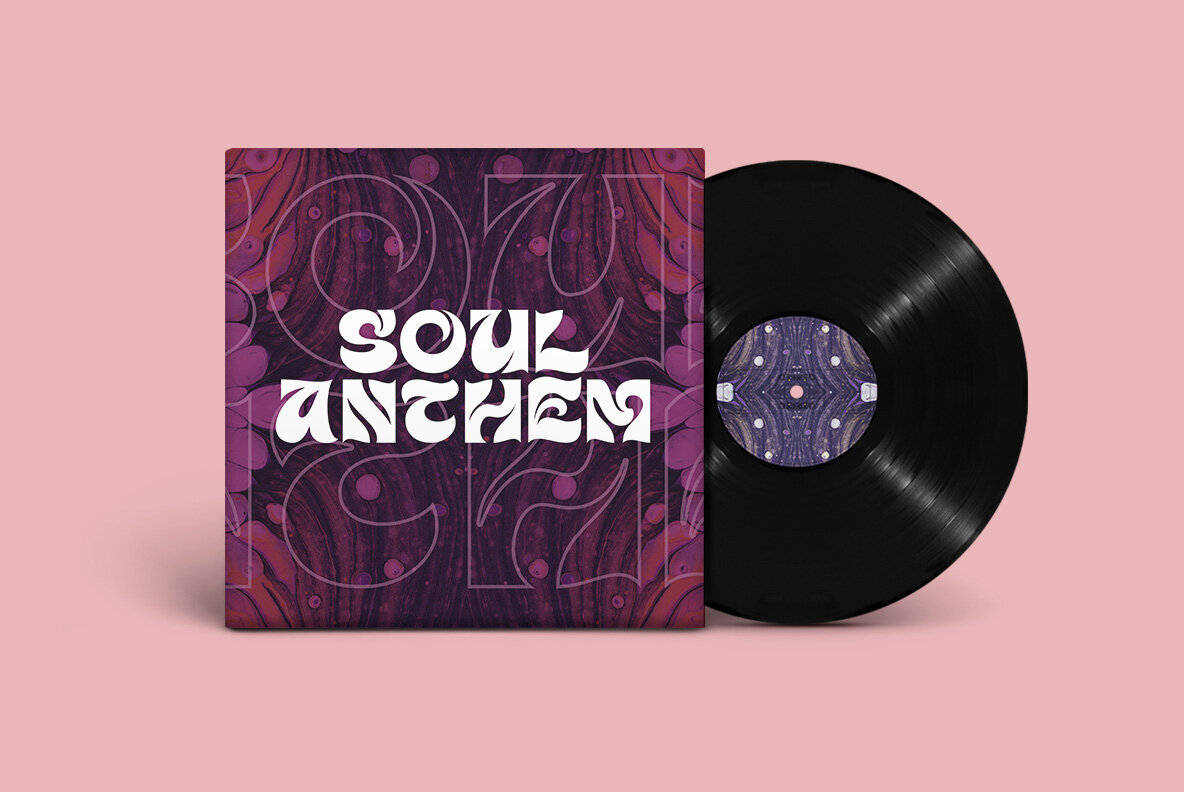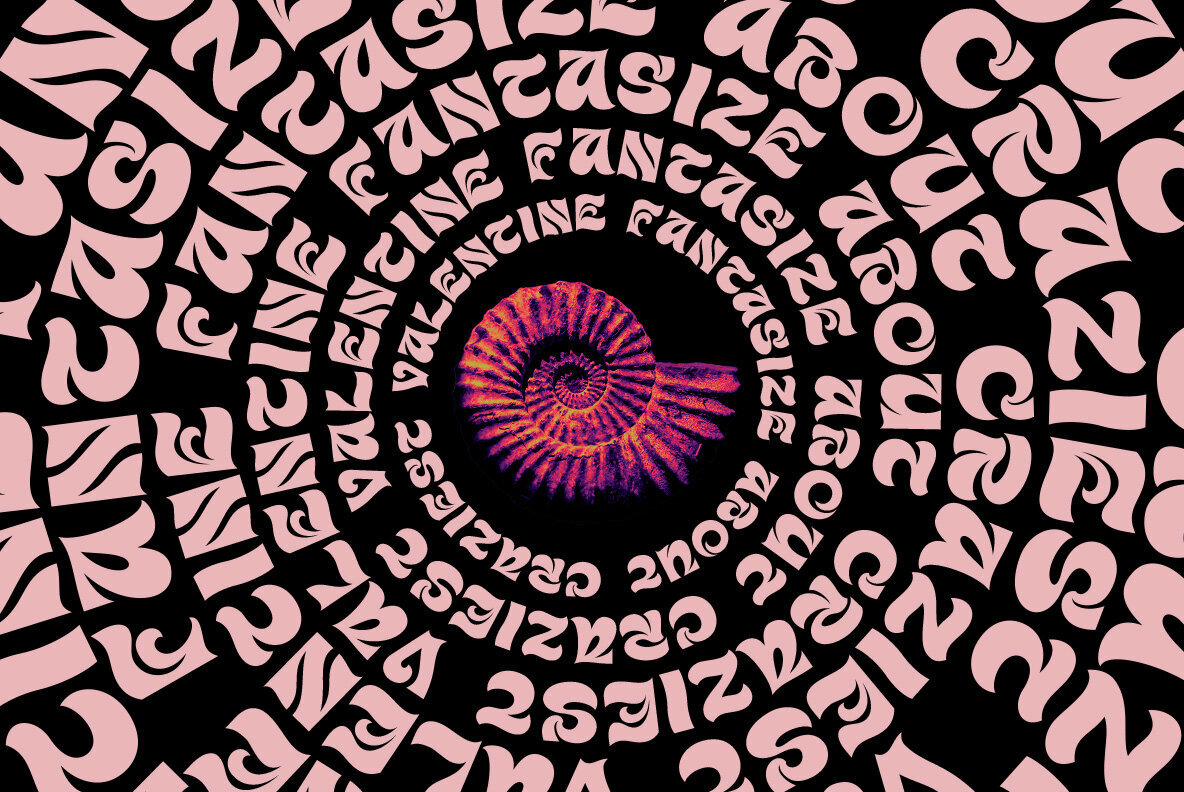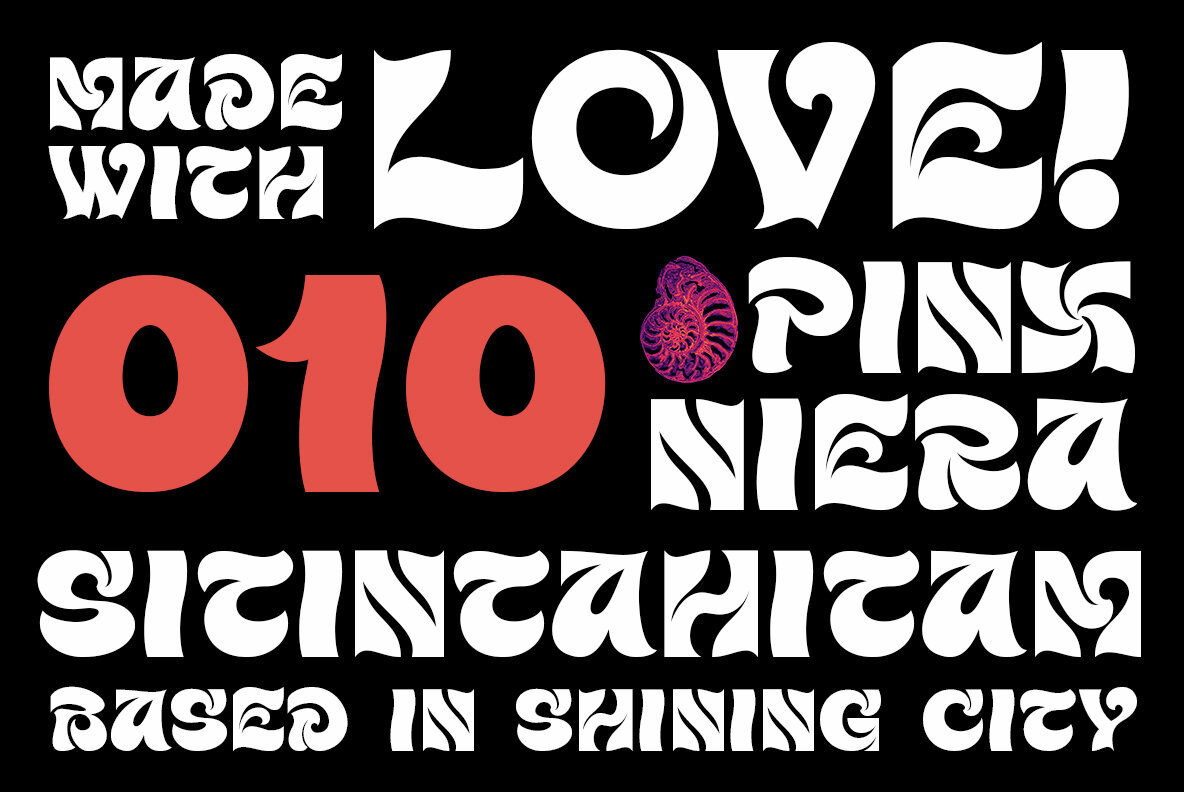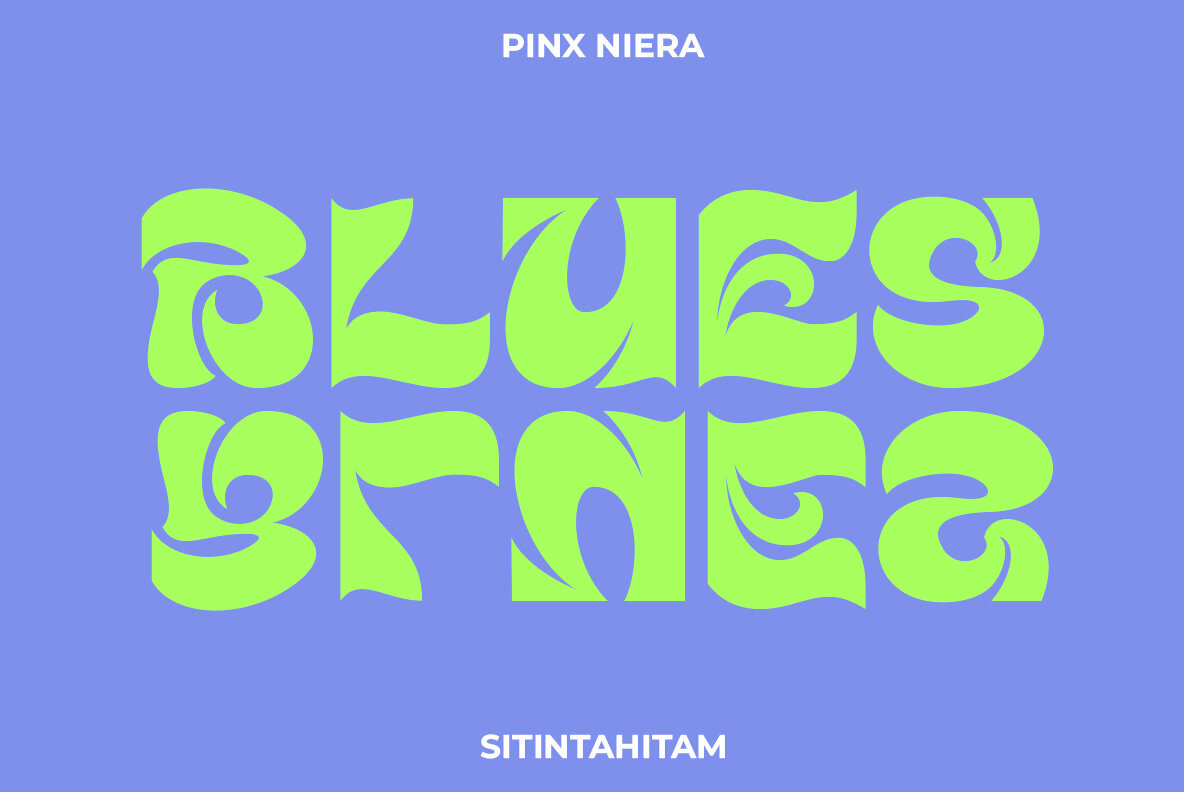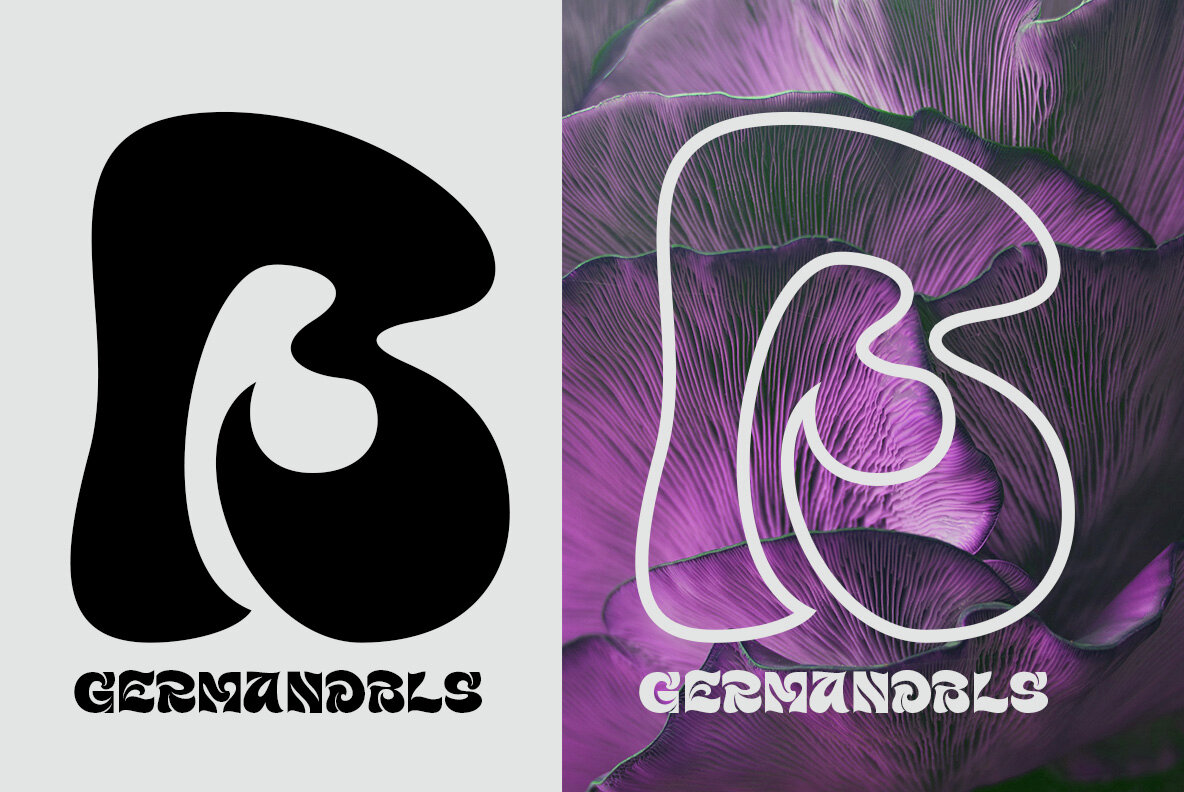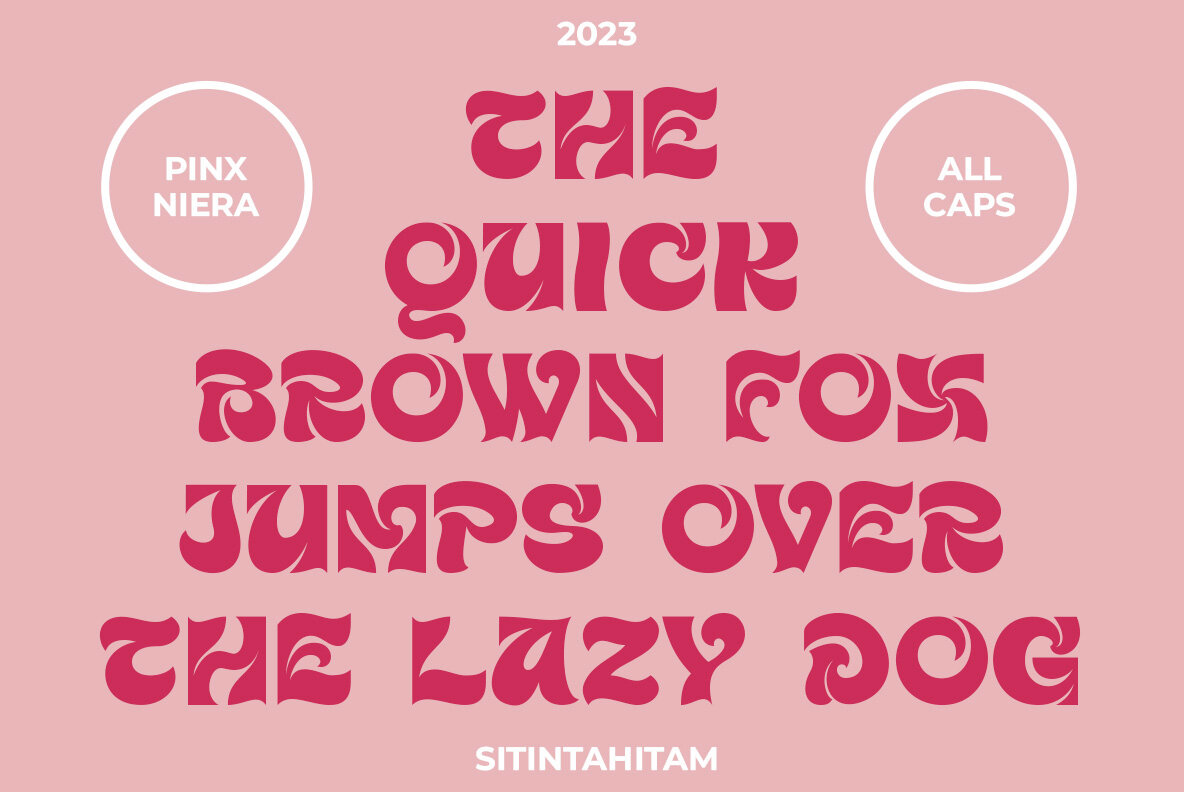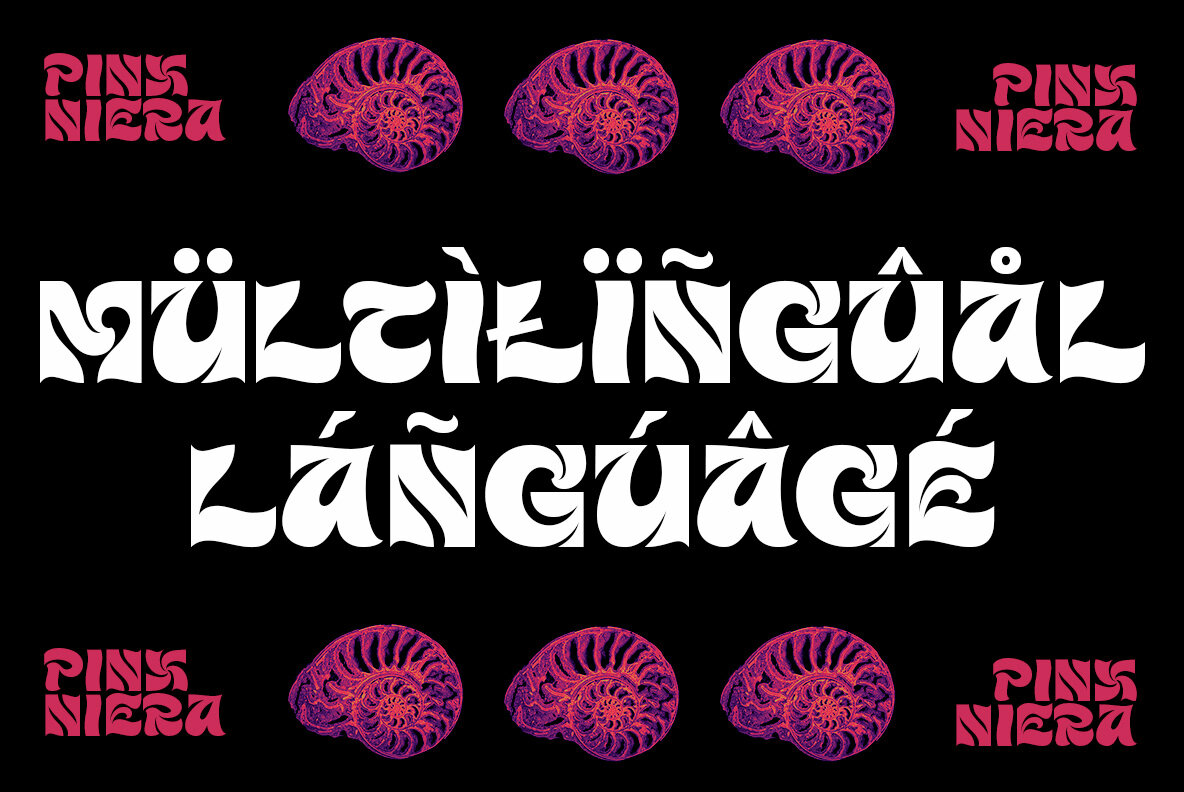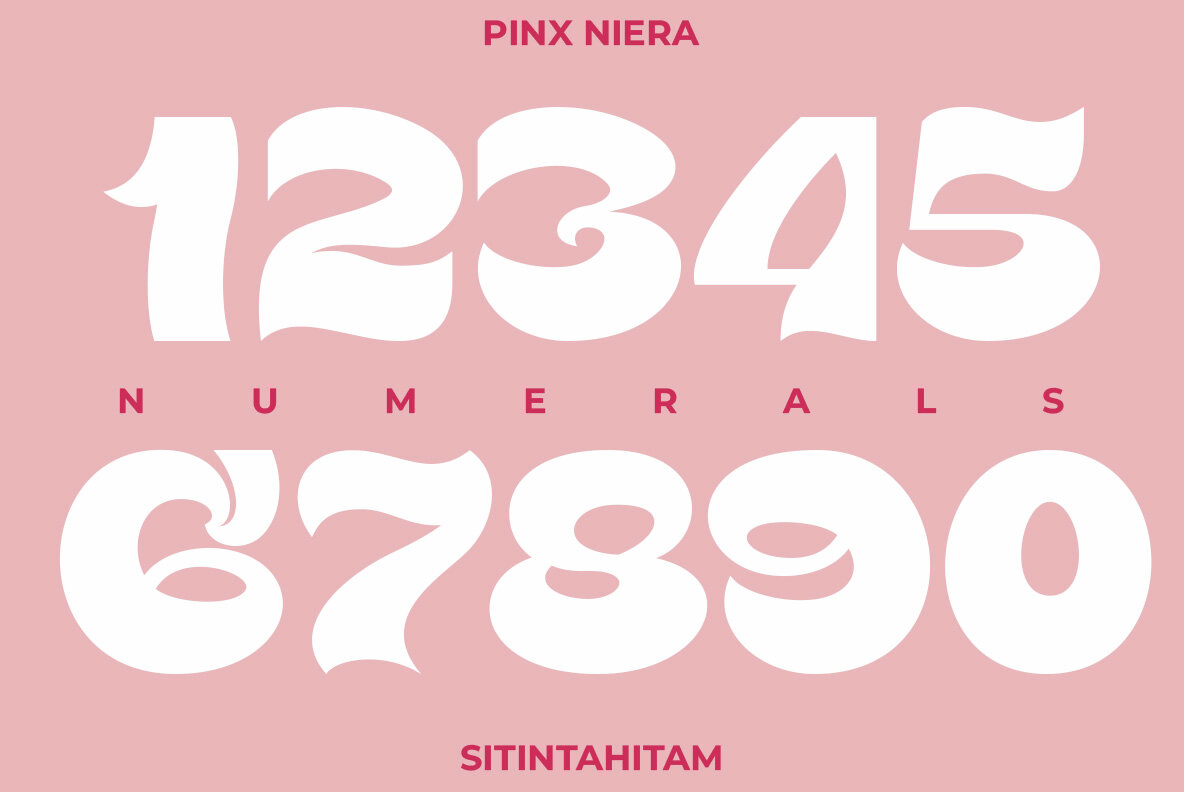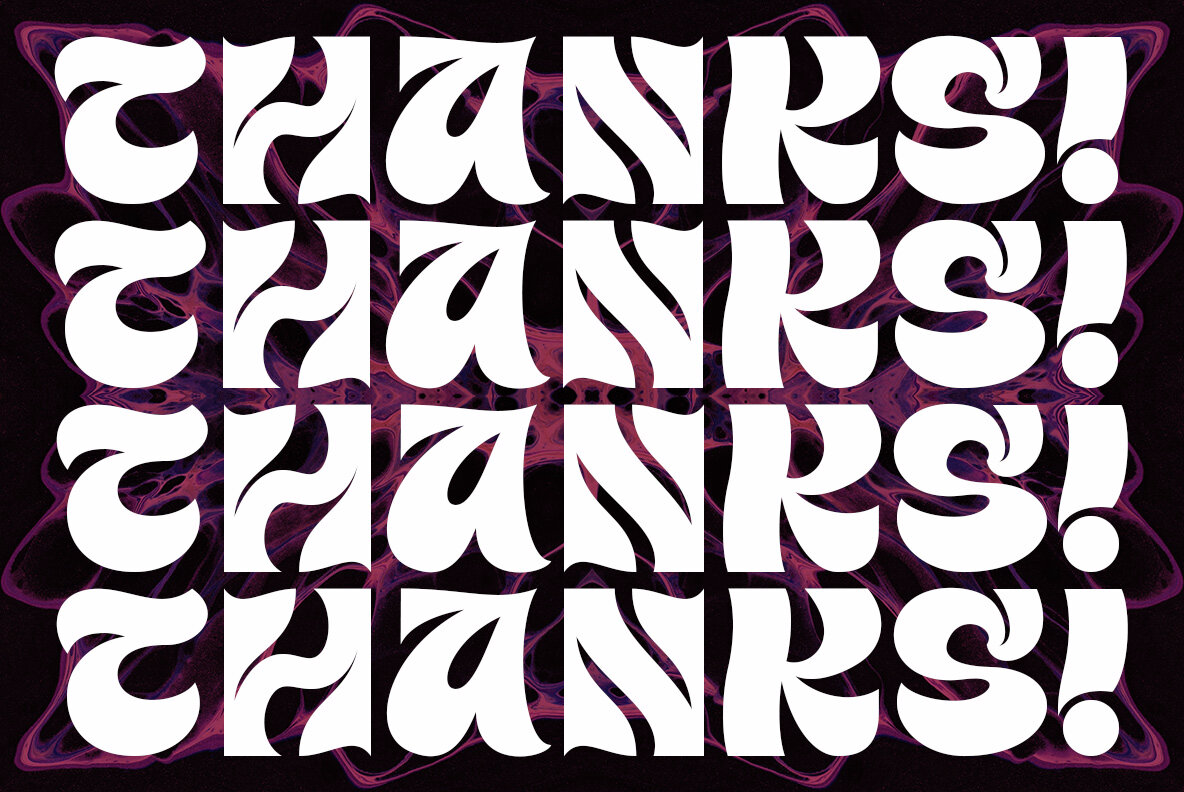
Pinx Niera Font
Pinx Niera Regular
Pinx Niera is a captivating typeface that draws inspiration from the world of psychedelic music and visuals. Characterized by its bold, clean, and unique form, this typeface is perfect for various graphic design projects.Pinx Niera: Bold Psychedelic Typeface